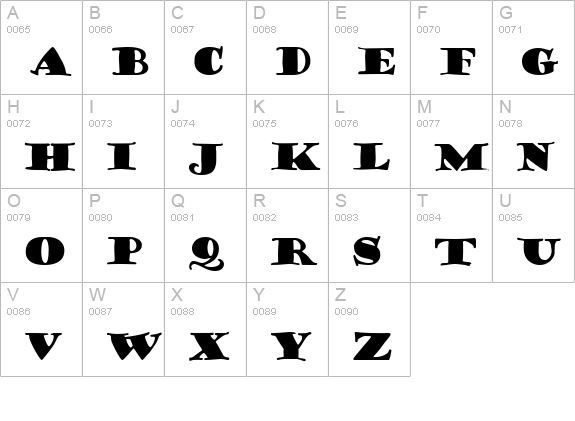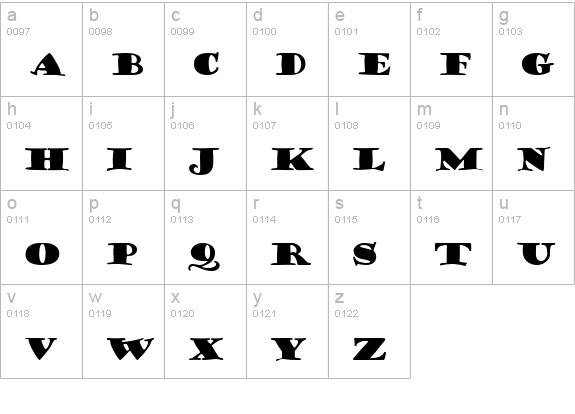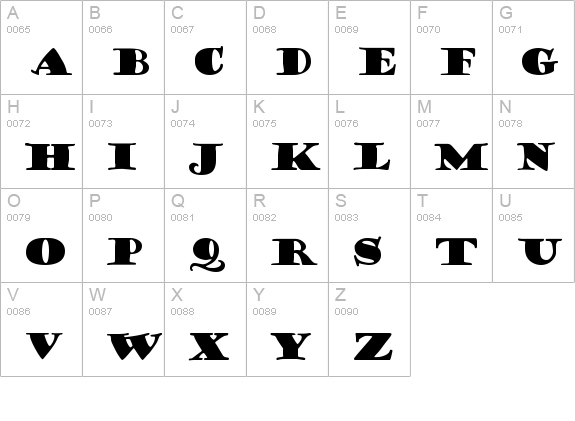
Porter Lil' Kaps Font Details
Porter Lil' Kaps font is a delightful and charming typeface that will bring a touch of whimsy to any project. With its playful and rounded letterforms, this font exudes a sense of youthful energy and creativity. Whether you're designing a children's book, creating a fun logo, or adding a touch of playfulness to your social media posts, Porter Lil' Kaps font is the perfect choice. This font is not only visually appealing, but it also offers a high level of readability. Each letter is carefully crafted to ensure clear legibility, making it ideal for both headlines and body text. The balance between the boldness of the letters and the open spacing creates a harmonious and easy-to-read experience for the reader. One of the most exciting aspects of Porter Lil' Kaps font is that it is completely free. Yes, you read that right - this font can be downloaded for free at FontsMarket.com. This means that you can add this delightful typeface to your font library without spending a dime. No need to worry about breaking the bank or compromising on quality; Porter Lil' Kaps font offers the best of both worlds - a captivating design and cost-free accessibility. So, whether you're a professional designer looking to add a touch of whimsy to your projects or someone who simply appreciates beautiful typography, Porter Lil' Kaps font is a must-have. Its charming appearance, legibility, and the fact that it is freely available for download at FontsMarket.com make it a standout choice for any creative endeavor. Embrace the playfulness and let Porter Lil' Kaps font elevate your designs to new levels of creativity.